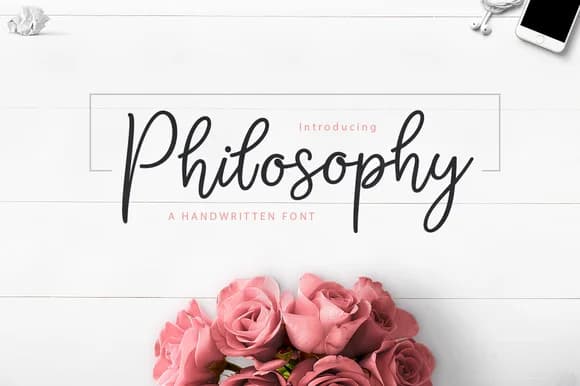
Philosophy Script Font by Creative Fabrica Fonts is an elegant handwritten script that brings refined character to sophisticated design work. With fluid strokes and authentic script qualities, this typeface communicates warmth and personality while maintaining professional polish across classic and contemporary applications. This script excels across varied design scenarios, from wedding invitation suites and custom wine labels to personalized stationery and boutique Etsy product packaging. Its expressive letterforms work equally well for handmade business card designs and luxury beauty brand identity systems. The font's natural script character makes it especially suited for projects where authentic handwork matters but polished execution is essential. Beyond traditional branding applications, Philosophy Script serves well for editorial headers, social media graphics for artisan businesses, and personalized print materials that communicate distinctive personality. The typeface offers comprehensive language support and multiple design weights, providing creative flexibility for various applications. Whether you're establishing a small business brand identity, designing packaging for handmade goods, creating DIY craft signage, or developing social media content for artisan makers, Philosophy Script delivers the expressive quality that transforms custom work into memorable design. Its balanced style accommodates both delicate, feminine projects and contemporary, understated approaches. Discover Philosophy Script Font on Creative Fabrica and add handwritten sophistication to your next creative project.
Philosophy Script Font is a script font that shines as a display or heading face. Pair it with a clean sans-serif or serif font for body text β the contrast creates a clear hierarchy while the two styles stay balanced and easy to read.